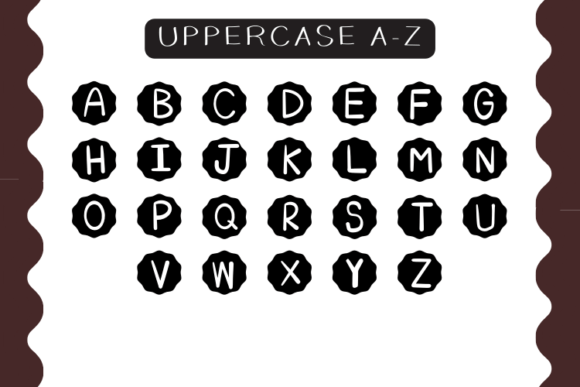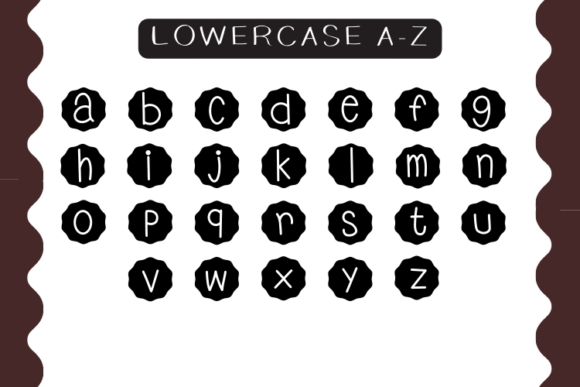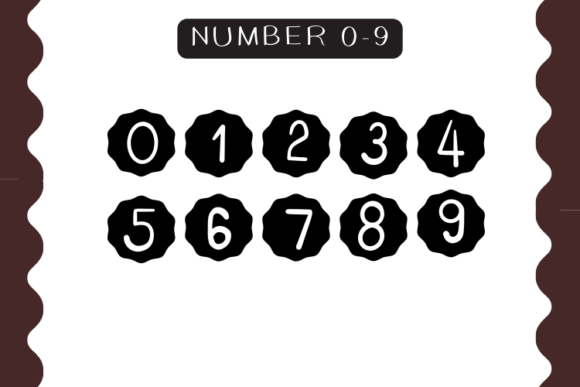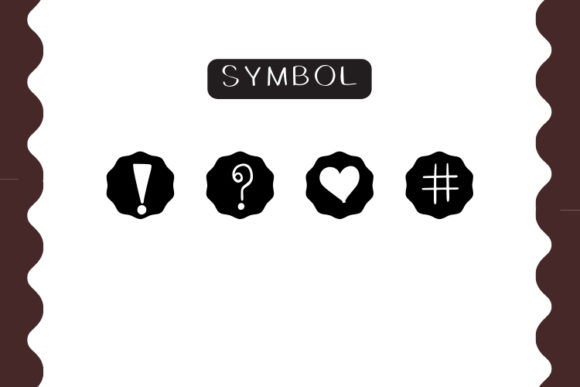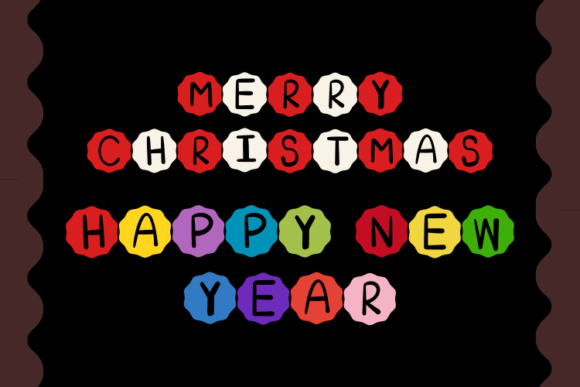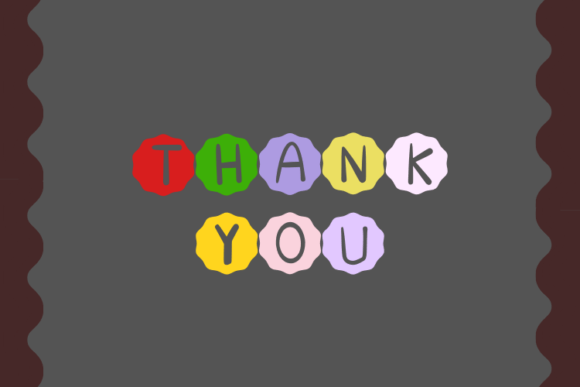
Introduction to Orbicular Font
Do you remember the excitement of creating a colorful worksheet as a child, with pictures and shapes that made learning a delightful experience? That’s exactly what the Orbicular Font aims to bring back – a dash of creativity and fun to your teaching materials.
As a valuable design resource, the Orbicular Font is a dingbats font that’s perfect for decorating textbooks, worksheets, exercises, game activities, and digital teaching aids. With its high-quality design, it’s a great addition to any creative project that requires a touch of whimsy and playfulness.
Whether you’re a teacher looking for a free download to spice up your lessons or a designer seeking a unique design element, the Orbicular Font is an excellent choice. Its transparent background makes it easy to integrate into your designs, and its versatility ensures that it will complement a wide range of creative projects.
Key Features of Orbicular Font
- Unique, elegant design with a transparent background
- Includes 6 styles and 2 weights for added versatility
- Designed with a modern aesthetic, perfect for logos, headings, and body text
Honest Review: Orbicular Font
I recently stumbled upon the Orbicular Font and I must say it’s a game-changer for any creative project. This versatile font is a valuable addition to any designer’s toolkit, offering a unique and eye-catching style that’s sure to elevate your design work.
What works well: ✨ The Orbicular Font is incredibly versatile and can be used in a variety of contexts, from modern logos to traditional print materials. Its sleek and modern design makes it perfect for contemporary designs. The font also comes with a transparent background, making it easy to overlay on images or other design elements.
Here are some of its key features:
- High-quality design that’s perfect for print and digital projects.
- Transparent background for easy overlay and design flexibility.
Limitations: ⚠️ The Orbicular Font is not suitable for all design projects, particularly those that require a more traditional or serif font style. Additionally, the font may not be compatible with all operating systems or software.
Overall, I’m really impressed with the Orbicular Font and would highly recommend it to any designer looking for a unique and high-quality design resource.
Tips for Getting the Most Out of Orbicular Font
To get the most out of the Orbicular Font, try the following:
- Combine the font with a transparent background to create a stunning visual effect.
- Experiment with different font sizes and colors to add depth and interest to your design.
- Use the Orbicular Font in conjunction with other design elements, such as graphics and images, to create a cohesive look.
The Orbicular Font is ideal for a variety of creative projects, including:
- Brochure design
- Poster design
- Infographic design
Alternatives to Orbicular Font
1. Cosmic Sans
Cosmic Sans is a high-quality, sans-serif font perfect for creative projects that require a touch of sophistication. It’s available for free download and features a transparent background, making it ideal for designs that require a clean and minimalist look. When to use: For designs that need a modern and sleek feel. How it compares to Orbicular Font: While Cosmic Sans lacks the rounded edges of Orbicular Font, it offers a more angular and contemporary look.
2. Open Sans
Open Sans is a popular design resource that offers a clean and modern sans-serif font. It’s highly legible and versatile, making it suitable for a wide range of creative projects. When to use: For designs that require a neutral and approachable tone. How it compares to Orbicular Font: Unlike Orbicular Font, Open Sans lacks the distinctive rounded edges, but its clean lines make it a great choice for designs that need to convey simplicity.
3. Great Vibes
Great Vibes is a beautiful, high-quality font that features a unique and playful design. It’s perfect for creative projects that require a touch of whimsy and fun. When to use: For designs that need a carefree and youthful vibe. How it compares to Orbicular Font: While Great Vibes has a similar rounded edge feel to Orbicular Font, it’s more elegant and sophisticated, making it a great choice for designs that require a touch of luxury.